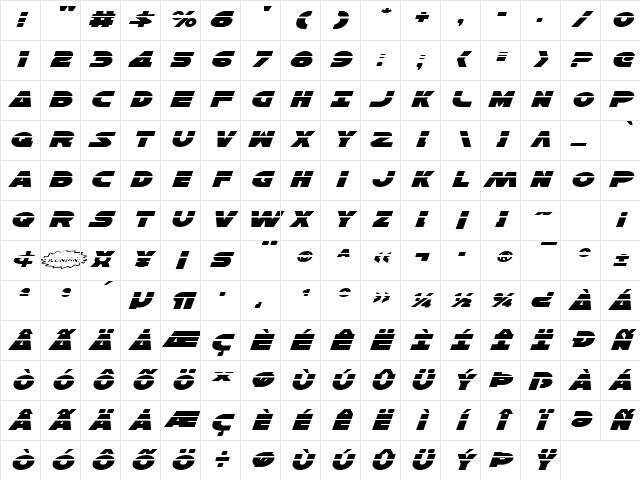
Han Solo Exp Laser Italic Free Font
Han Solo Exp Laser Italic Exp Laser Italic
Style: Exp Laser Italic
Designer: Dan Zadorozny
Design Context for Han Solo Exp Laser Italic
Han Solo Exp Laser Italic is a composed and adaptable typeface that performs quietly and consistently across a wide range of design contexts. The slanted form adds forward momentum and visual energy.
Pro Tip: Use Han Solo Exp Laser Italic for emphasis, pull quotes, and subheadings where its slanted energy can add rhythm to the layout.